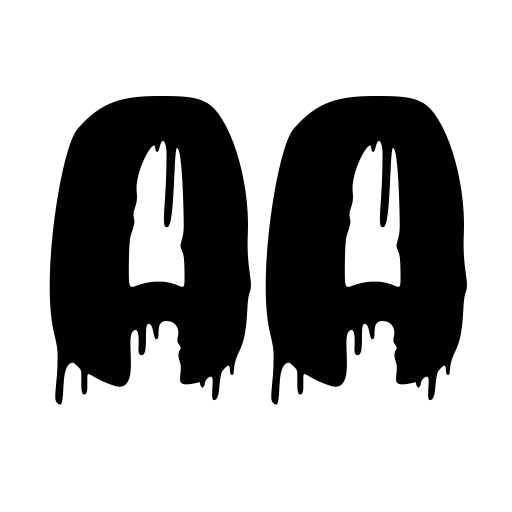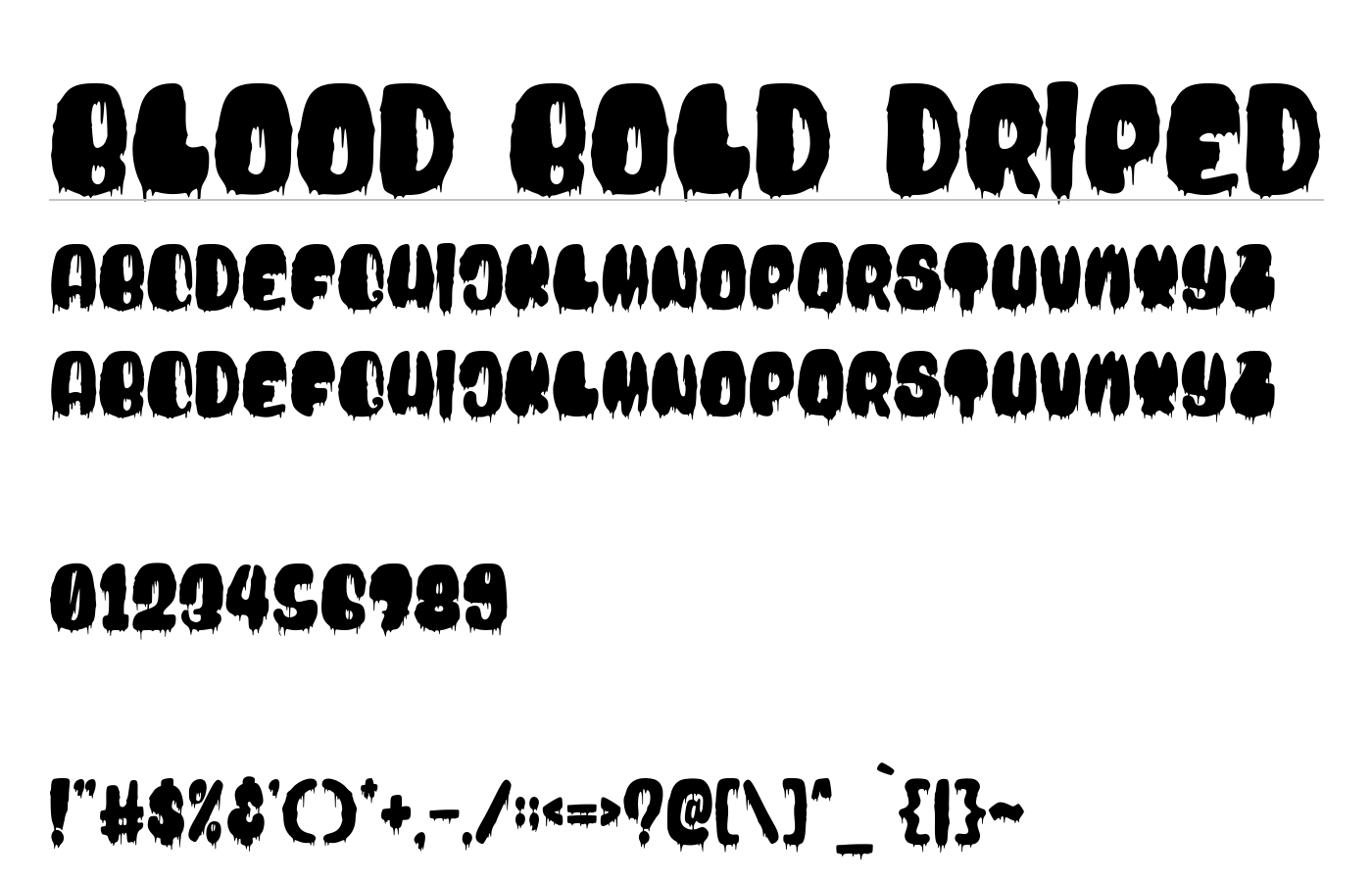
Blood Bold Driped is a bold, display sans serif font with a dripping effect that mimics fresh, liquid blood. Its thick, rounded letterforms are accompanied by irregular drips and splatters, creating a dramatic, eerie feel perfect for Halloween or horror-themed designs. This font works best in eye-catching headlines, posters, and branding that aim to evoke a spooky or intense atmosphere.
Blood Bold Driped Font
About Blood Bold Driped Font
| Font family | Blood Bold Driped Font |
| Designer | Stringlabs |